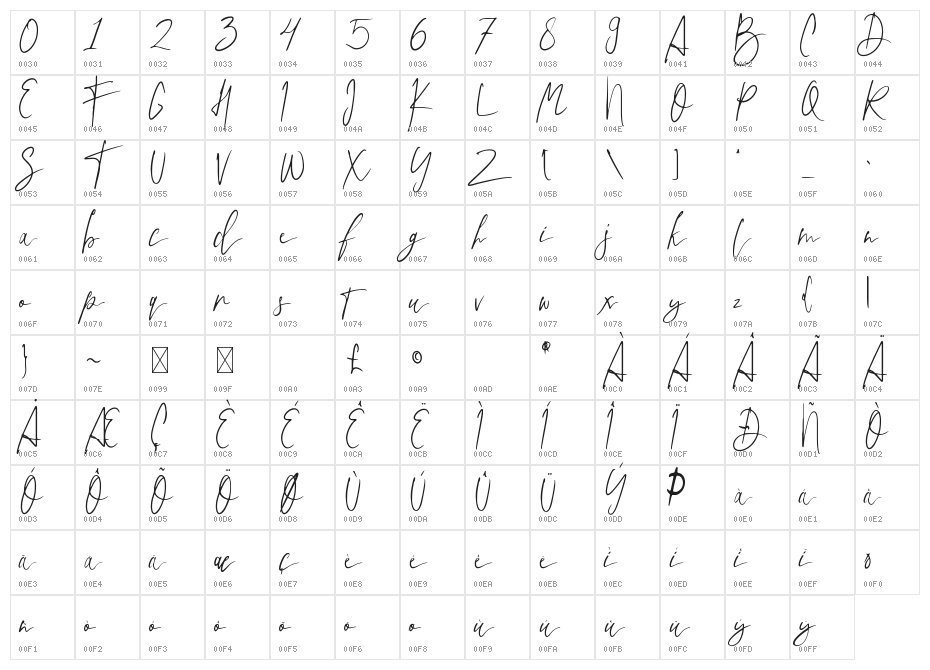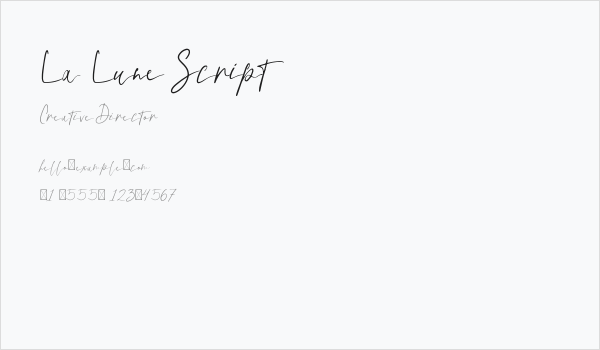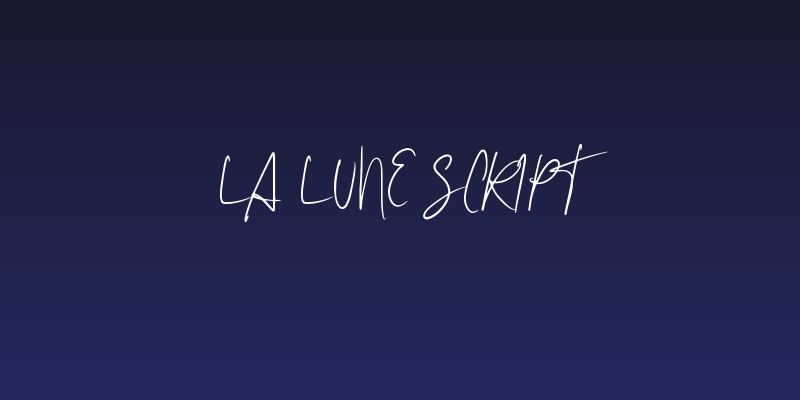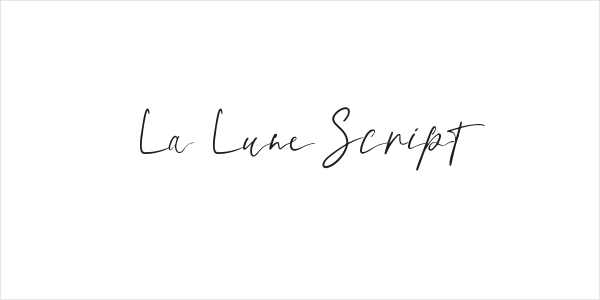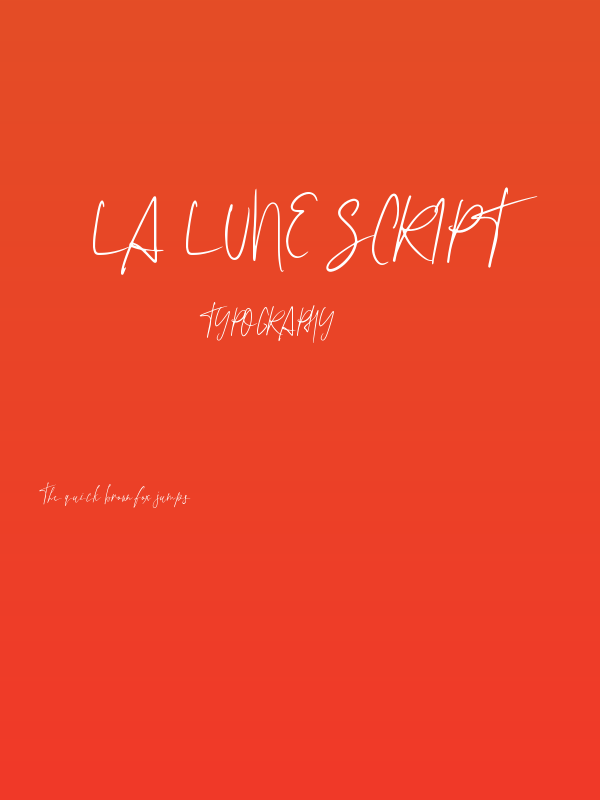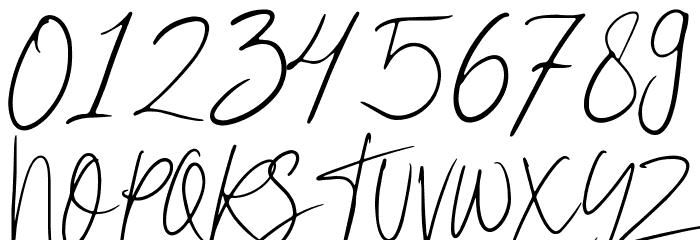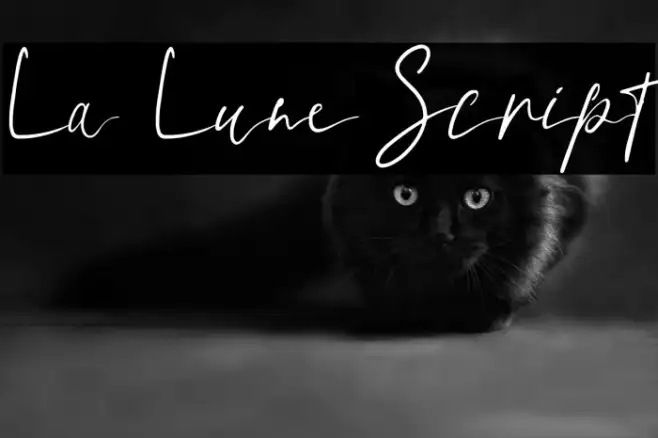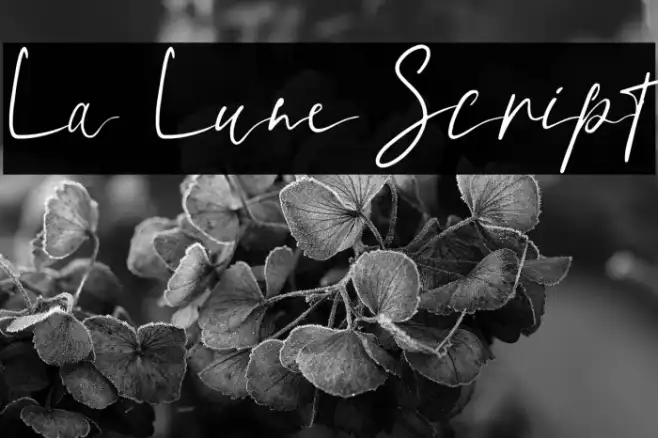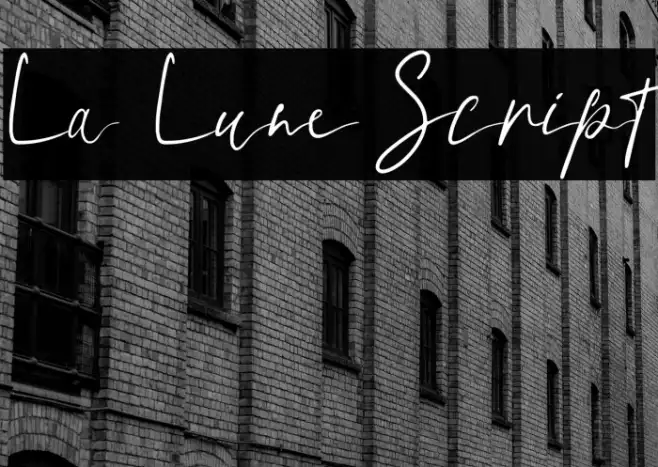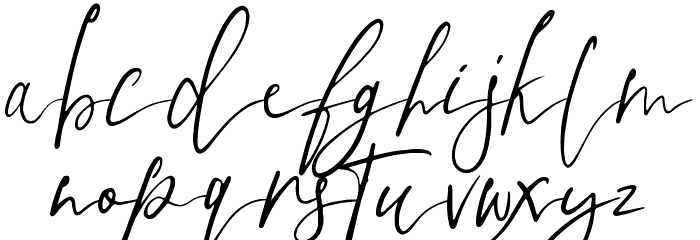
La Lune Script Font
La Lune Script Description
This font exudes a whimsical and artistic flair, characterized by its fluid, cursive strokes and elegant loops. The letters are interconnected, creating a seamless flow that mimics natural handwriting. Its thin lines and varying stroke widths add a touch of sophistication and grace. The uppercase letters are bold and expressive, while the lowercase letters maintain a delicate and airy appearance. Numbers and special characters are crafted with the same attention to detail, ensuring consistency throughout. This font is perfect for projects that require a personal and creative touch, such as invitations, greeting cards, or artistic branding.
| Proposed Projects | Ideal for invitations, greeting cards, artistic branding, and personal projects. |